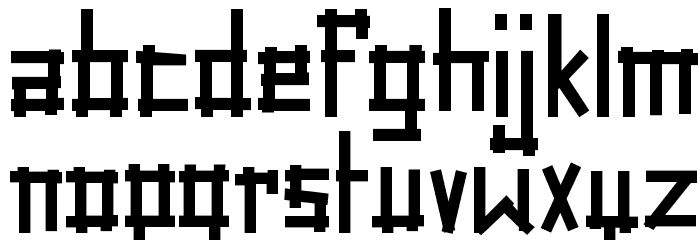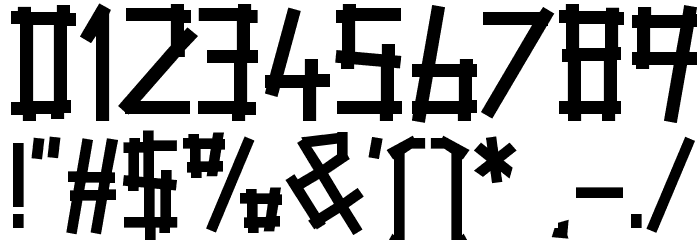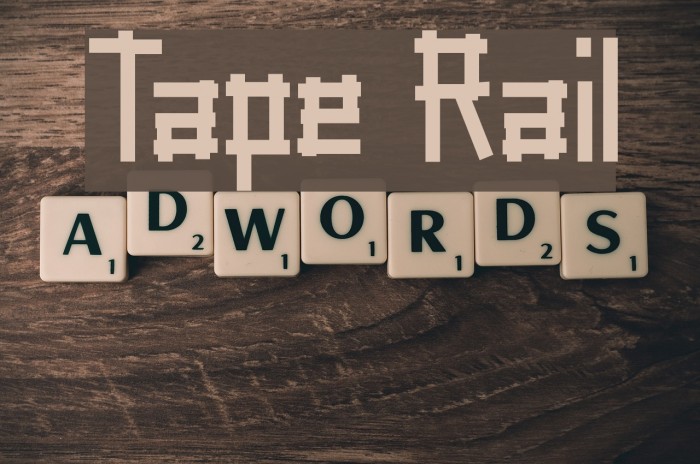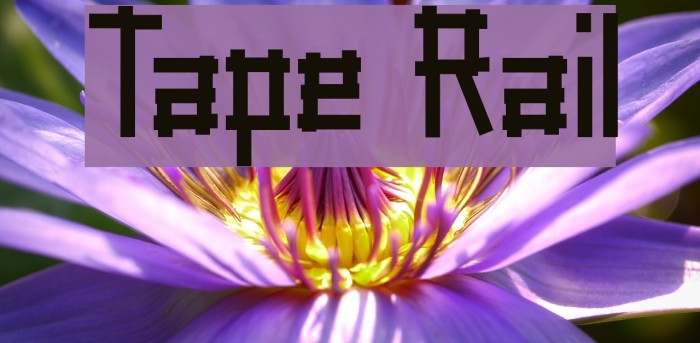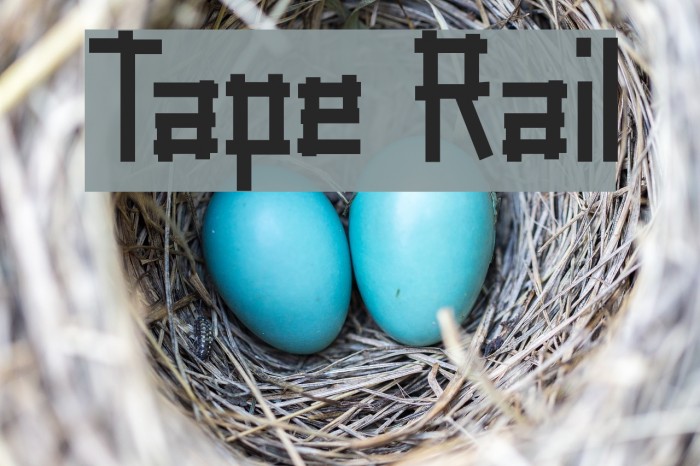
Tape Rail Font
This font features a unique, blocky design with a mechanical and industrial feel. The characters are constructed with thick, uniform strokes that resemble pieces of tape or rail tracks, giving it a distinctive and bold appearance. The uppercase and lowercase letters maintain a consistent height, creating a cohesive look across the alphabet. Numbers and special characters follow the same design principles, ensuring uniformity throughout. The font's geometric structure and sharp angles make it stand out, while its boldness ensures readability even at smaller sizes. This style is particularly suited for projects that require a modern, edgy aesthetic.
A bold, blocky font with a mechanical, industrial design.